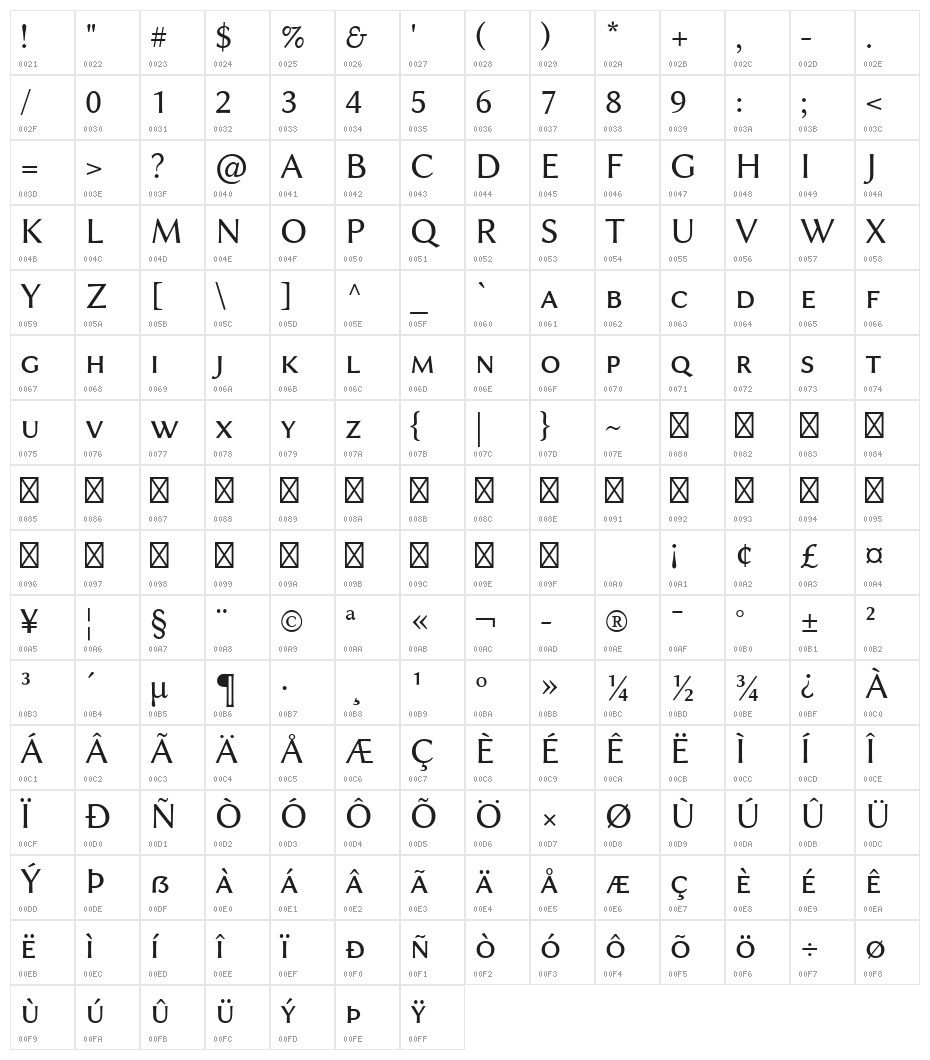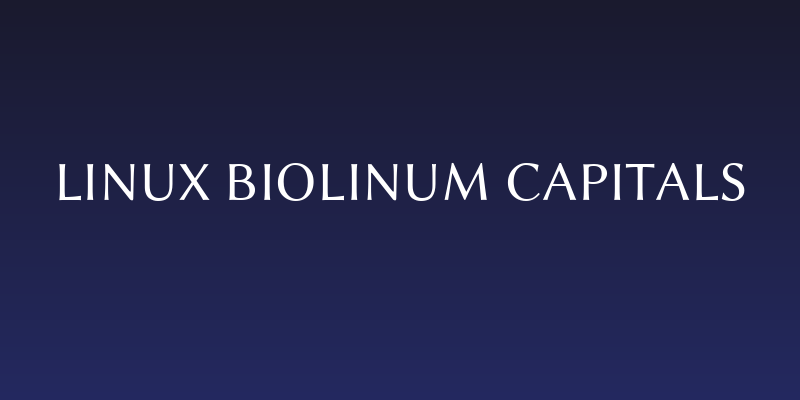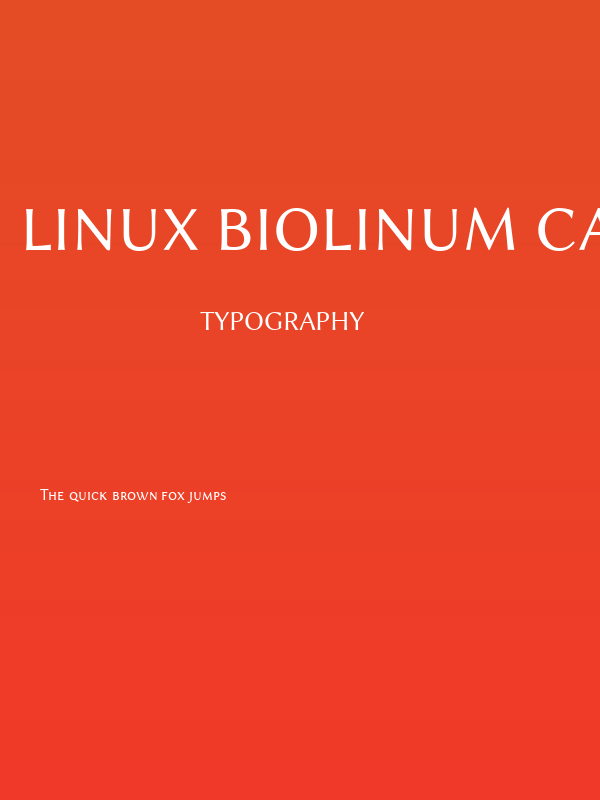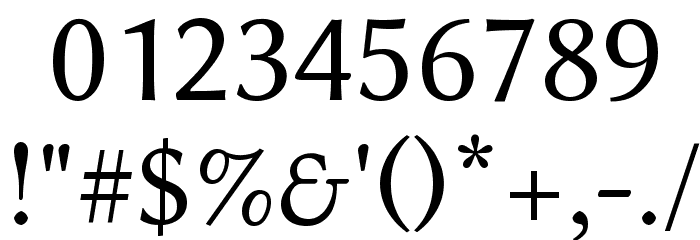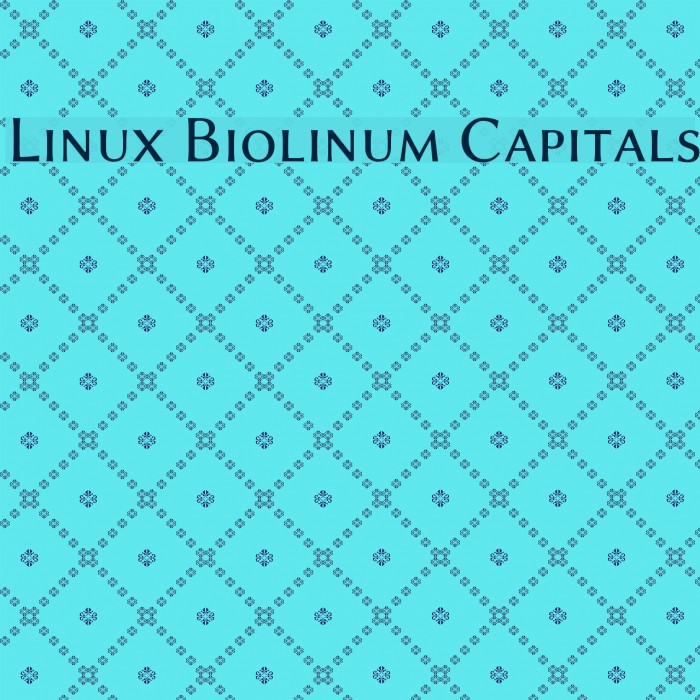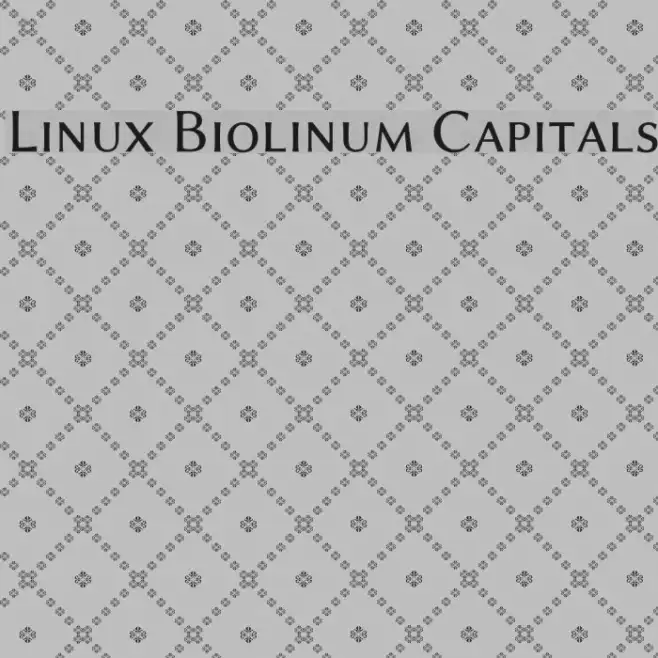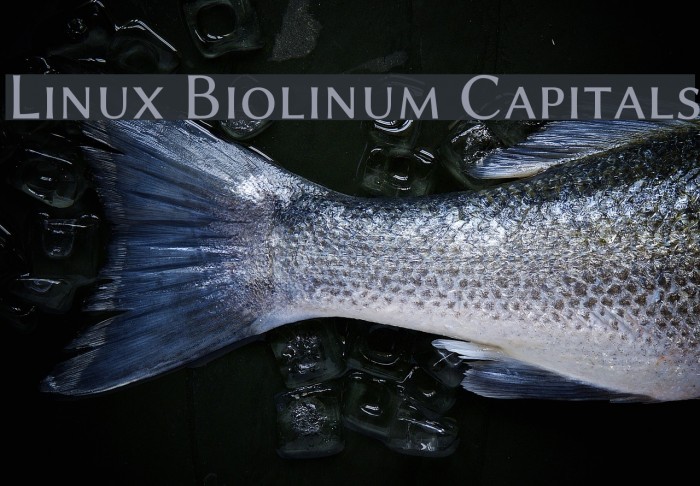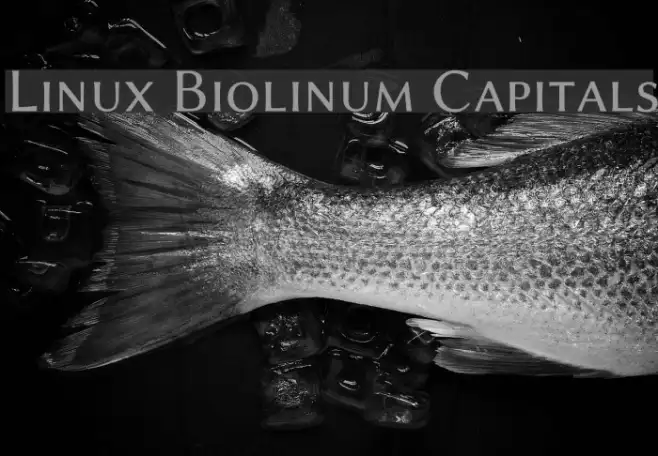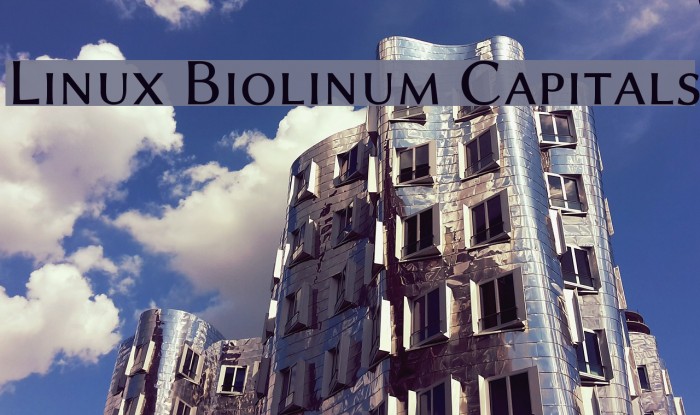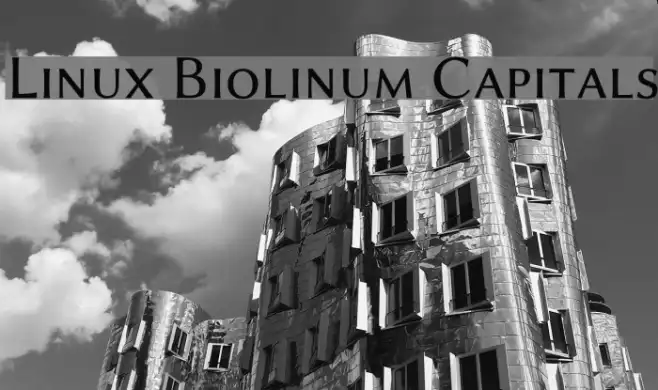
Linux Biolinum Capitals Font
Linux Biolinum Capitals Description
This font exhibits a classic serif style with clean, elegant lines and a balanced structure. The uppercase letters are well-proportioned, featuring subtle serifs that add a touch of sophistication. The numerals are clear and distinct, making them easily readable. Special characters are designed with the same attention to detail, ensuring consistency across the font. The overall appearance is refined and professional, suitable for a variety of formal applications.
| Proposed Projects | Ideal for formal documents, book typesetting, branding, and editorial design. |